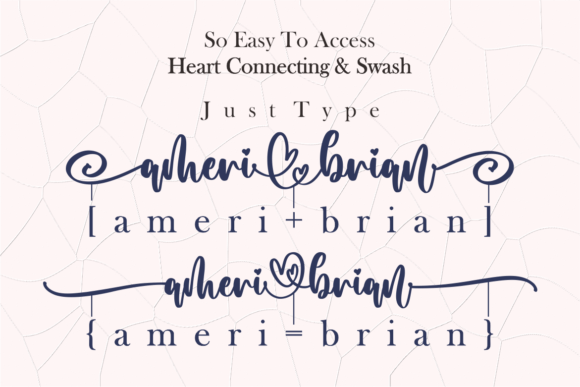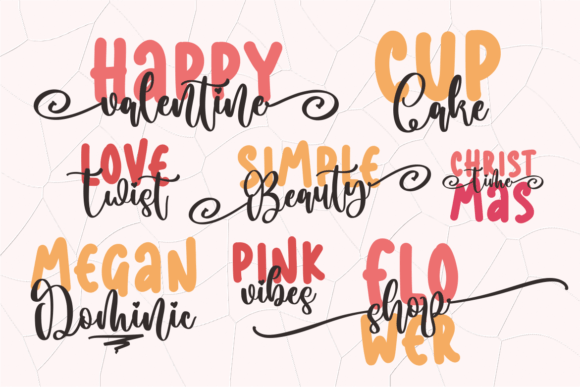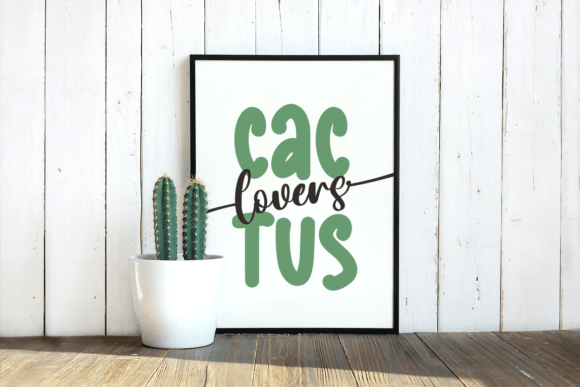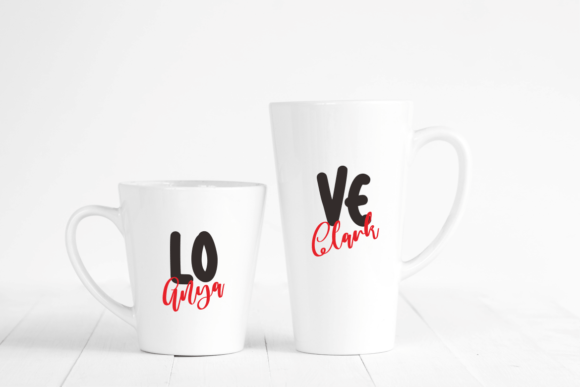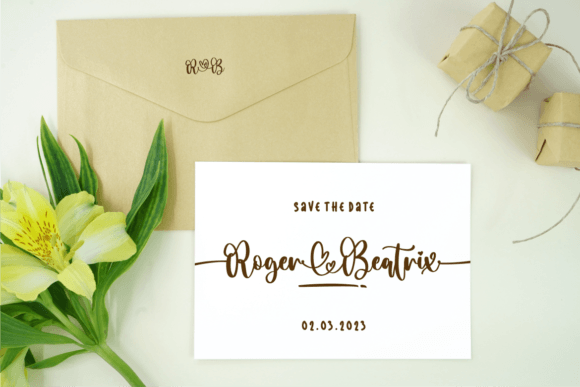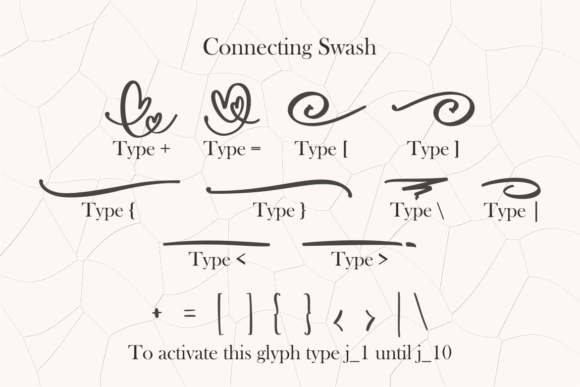
Introducing Ameri Brian Font: The Perfect Duo for Romantic Creations
Are you a designer or crafter looking for a font that can add a touch of elegance and romance to your creations? Look no further than the Ameri Brian Font, a stylish and delicate duo font that combines a beautiful script font with a clean sans serif font. This versatile font duo is perfect for a wide range of applications, from greeting cards to headlines, and is sure to bring a romantic touch to each of your projects.
What Makes Ameri Brian Font So Special?
The Ameri Brian Font is a unique and stylish duo font that offers the best of both worlds. The script font is elegant and flowing, with beautiful curves and swashes that add a touch of sophistication to any design. The sans serif font, on the other hand, is clean and modern, providing a perfect contrast to the script font. Together, they create a stunning duo that can be used for a wide range of creative projects.
Key Features of Ameri Brian Font
- Dual Font**: The Ameri Brian Font comes with two fonts in one – a beautiful script font and a clean sans serif font.
- Elegant and Delicate**: The script font is elegant and delicate, with beautiful curves and swashes that add a touch of sophistication to any design.
- Clean and Modern**: The sans serif font is clean and modern, providing a perfect contrast to the script font.
- Versatile**: The Ameri Brian Font is suitable for a wide range of applications, from greeting cards to headlines.
- Romantic Touch**: This font duo is sure to bring a romantic touch to each of your creations.
Uses for Ameri Brian Font
The Ameri Brian Font is a versatile font duo that can be used for a wide range of creative projects. Here are some ideas to get you started:
- Greeting Cards**: Use the Ameri Brian Font to create beautiful and elegant greeting cards for special occasions such as weddings, anniversaries, and birthdays.
- Headlines**: Use the sans serif font to create clean and modern headlines for your blog posts, articles, or social media graphics.
- Logos**: Use the Ameri Brian Font to create a unique and stylish logo for your business or brand.
- Invitations**: Use the script font to create beautiful and elegant invitations for weddings, parties, or other special events.
- Social Media Graphics**: Use the Ameri Brian Font to create eye-catching and romantic social media graphics for your business or brand.
Why Choose Ameri Brian Font?
There are many font duos available on the market, but the Ameri Brian Font stands out for its unique combination of elegance and versatility. Here are some reasons why you should choose the Ameri Brian Font for your next project:
- Unique and Stylish**: The Ameri Brian Font is a unique and stylish duo font that will add a touch of elegance to any design.
- High-Quality**: The font is designed with high-quality and attention to detail, ensuring that it looks great in any size or resolution.
In conclusion, the Ameri Brian Font is a stylish and delicate duo font that is perfect for designers and crafters looking to add a touch of romance and elegance to their creations. With its unique combination of a script font and a sans serif font, this font duo is versatile and can be used for a wide range of applications. Whether you’re creating greeting cards, headlines, logos, or social media graphics, the Ameri Brian Font is sure to bring a romantic touch to each of your projects.